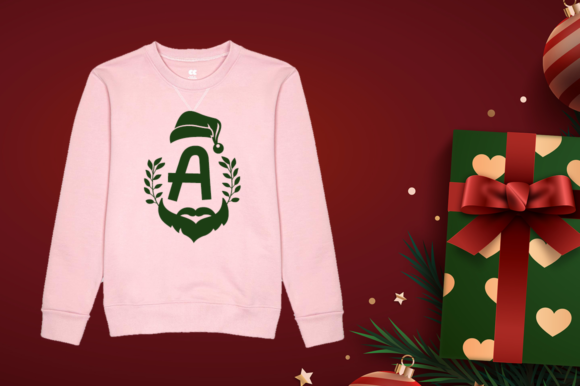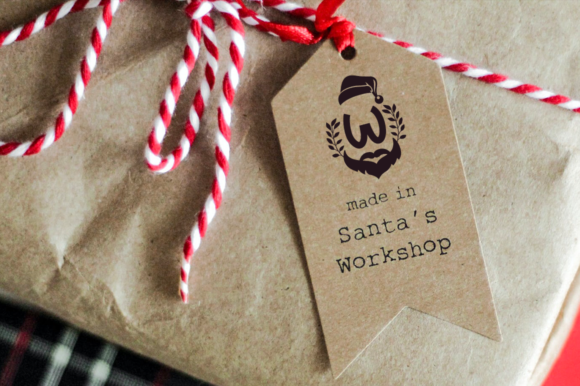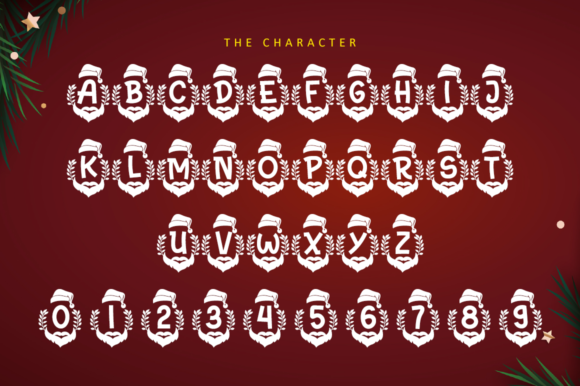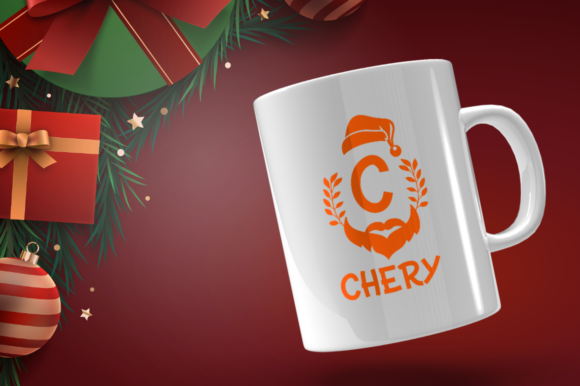
Introduction to Santa Monogram Font
As the holiday season approaches, I find myself browsing through design resources, searching for the perfect font to bring my festive projects to life. Last year, I stumbled upon the enchanting Santa Monogram Font, and it instantly became my go-to choice for all things winter wonderland. With its playful, handwritten style, this font adds a touch of magic to any design, making it perfect for creating high-quality, eye-catching graphics.
Whether you’re working on a creative project, designing invitations, or creating social media graphics, the Santa Monogram Font is an invaluable resource. Its transparent background makes it easy to layer over other design elements, allowing you to achieve a seamless look. And the best part? It’s free to download, making it accessible to designers of all levels.
So, if you’re looking to add a dash of festive flair to your designs, look no further than the Santa Monogram Font. With its unique charm and versatility, it’s sure to become your new favorite design resource.
- High-quality design for a unique and creative project, perfect for adding a touch of elegance and sophistication.
- Comes with a transparent background, making it easy to use in various design applications and ensuring seamless integration.
- Designed with a large character set, making it suitable for a variety of languages and ensuring broad appeal.
- Features a high resolution of 300 DPI, ensuring crisp and clear text display, even at larger sizes.
- Unique and intricate design, perfect for adding a touch of whimsy and personality to any creative project.
I recently had the chance to try out the Santa Monogram Font, and I have to say it’s a great addition to any designer’s toolkit. The font is perfect for creative projects where you need a unique and elegant touch. One of the things that really stood out to me is the high quality of the font – the lines are crisp and clean, making it perfect for printing or digital use.
- ✨ Perfect for creative projects and designs that require a touch of elegance
- ✨ High-quality lines and clean design
- ⚠️ Limited character set – may not be suitable for long blocks of text
- ⚠️ Not as versatile as some other fonts on the market
Overall, I’m really impressed with the Santa Monogram Font. It’s a great addition to any designer’s toolkit, and I would definitely recommend it to anyone looking for a unique and elegant font for their creative project.
The Santa Monogram Font is ideal for various creative projects, including invitations, logos, and business cards. Its elegant and sophisticated design makes it perfect for formal events and corporate branding.